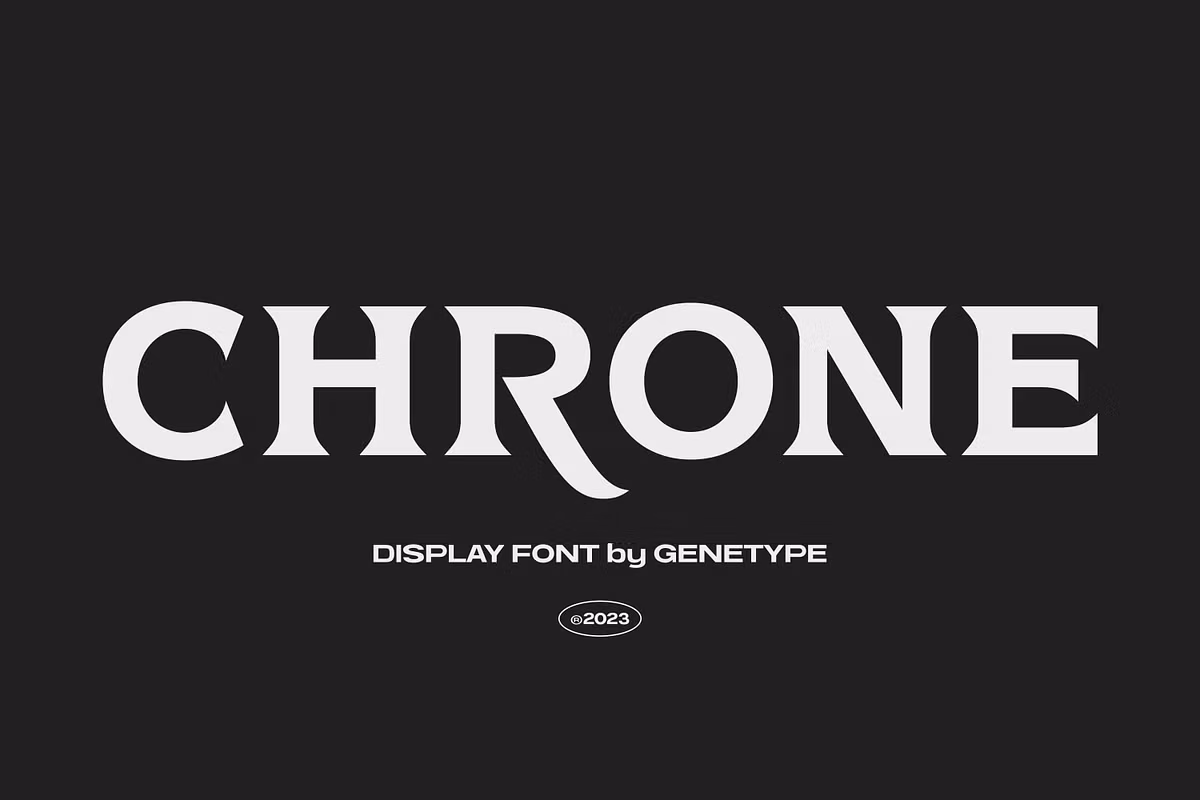
Chrone Display Font Free Download
Chrone Display Font Free Download is a bold and futuristic typeface designed to make a striking visual impact. With its geometric structure, sharp edges, and modern proportions, Chrone is perfect for tech branding, sci-fi posters, esports logos, digital ads, and high-impact editorial layouts.
Its clean lines and commanding presence make it ideal for headlines, titles, and bold messaging. Whether you're building a brand identity or crafting sleek digital visuals, Chrone delivers clarity, strength, and cutting-edge style.
Designers love Chrone for its high readability, contemporary vibe, and standout character across both print and digital platforms. Want your typography to look powerful and forward-thinking? Download Chrone Display Font Free Download and bring futuristic energy to your next design.